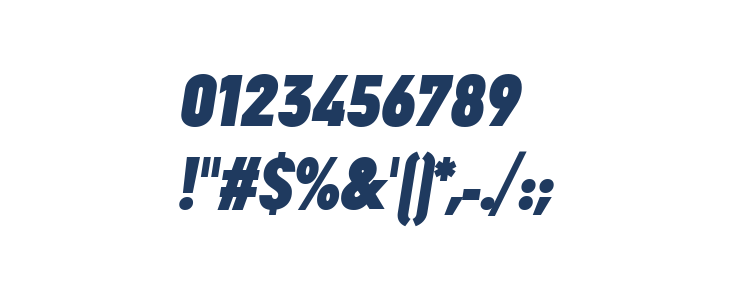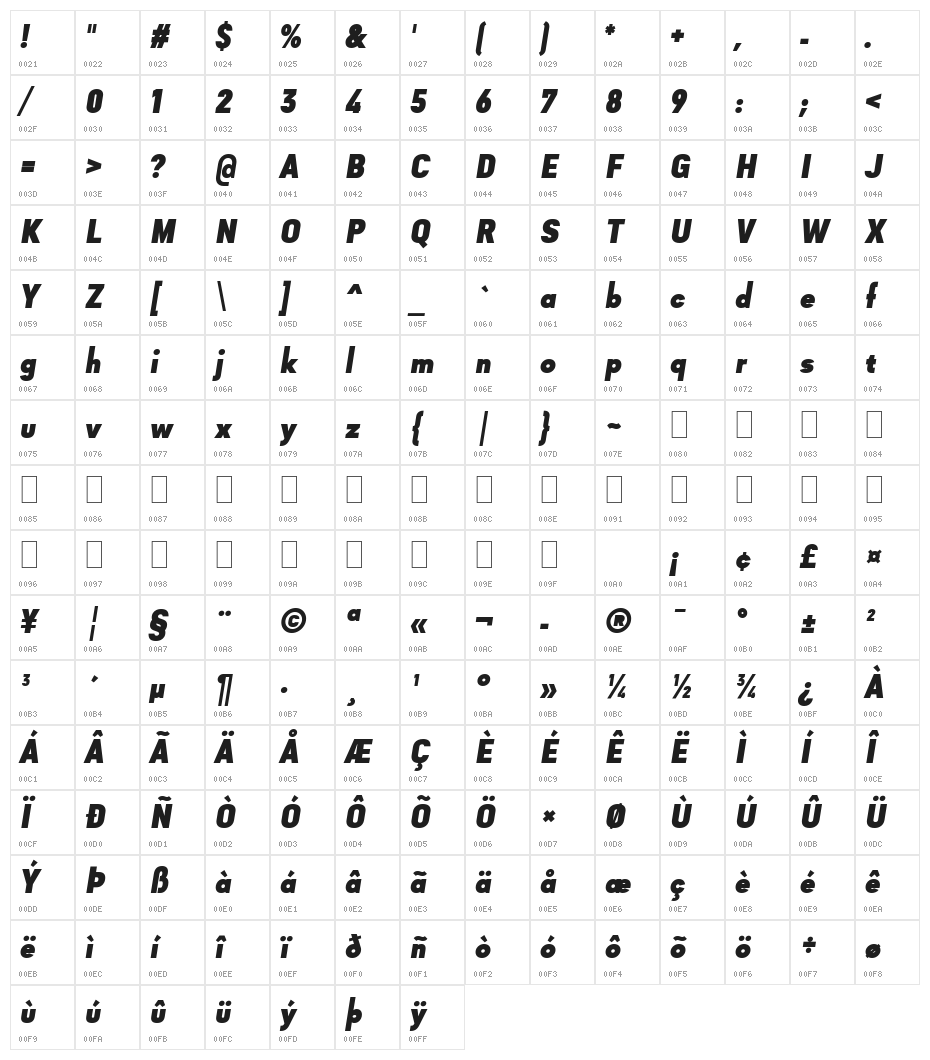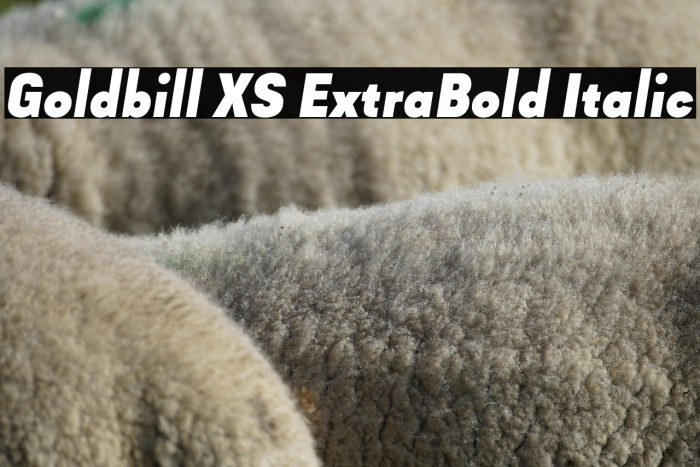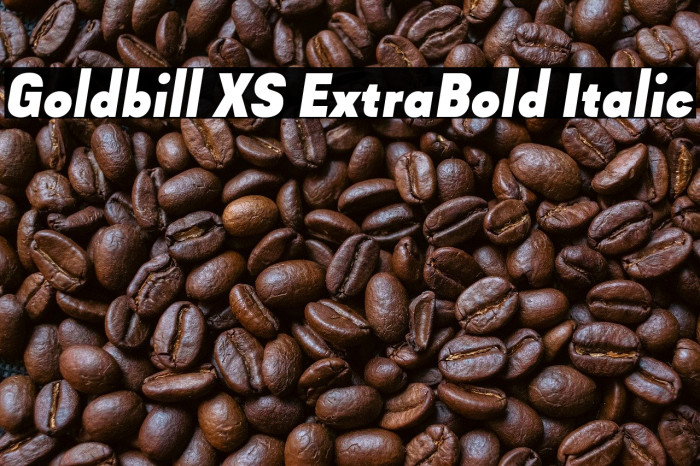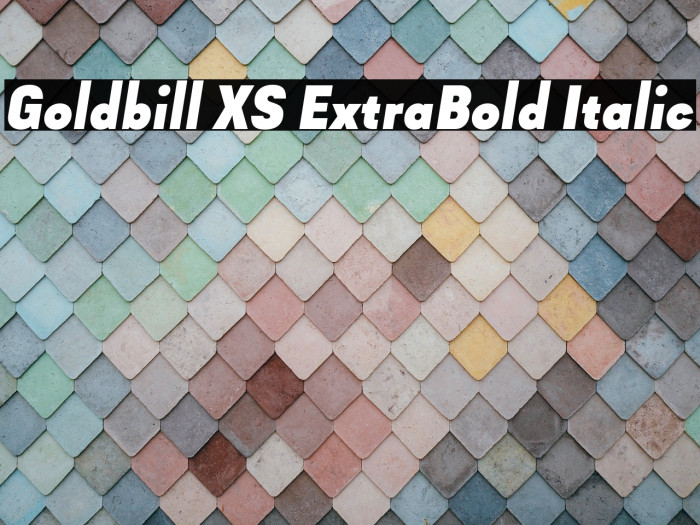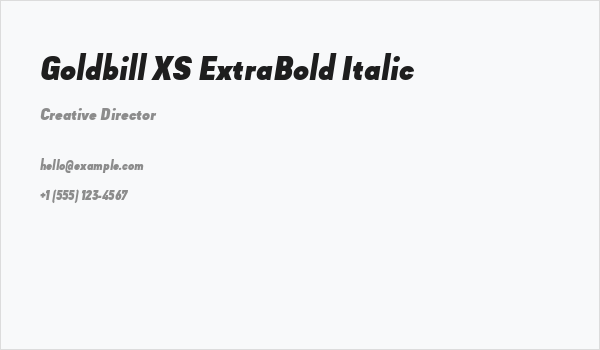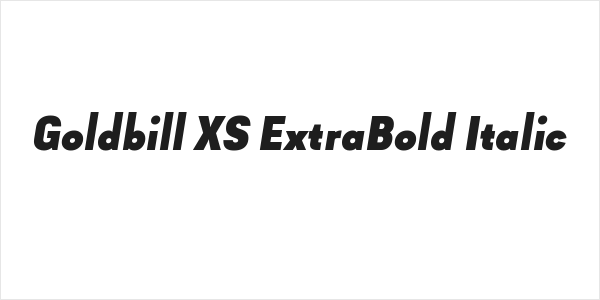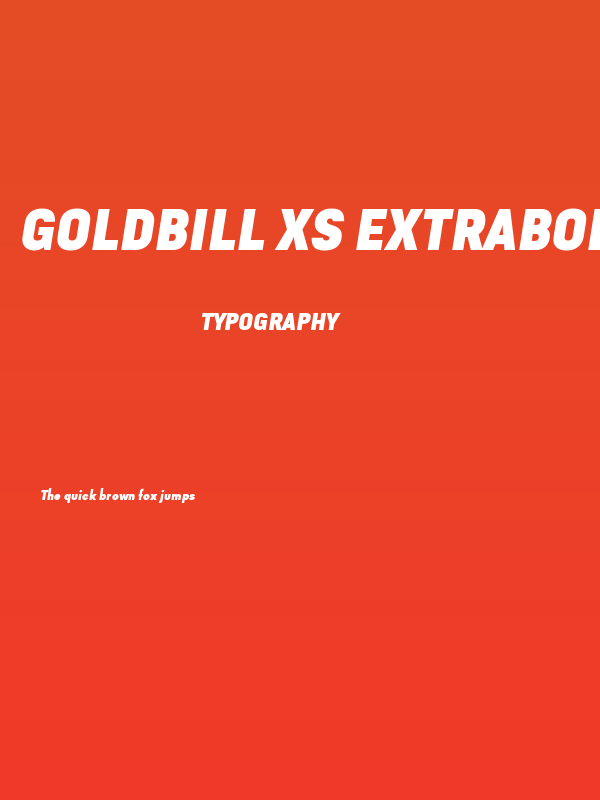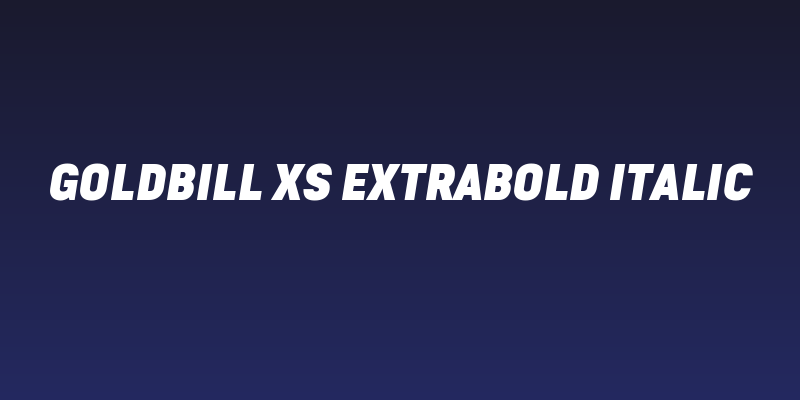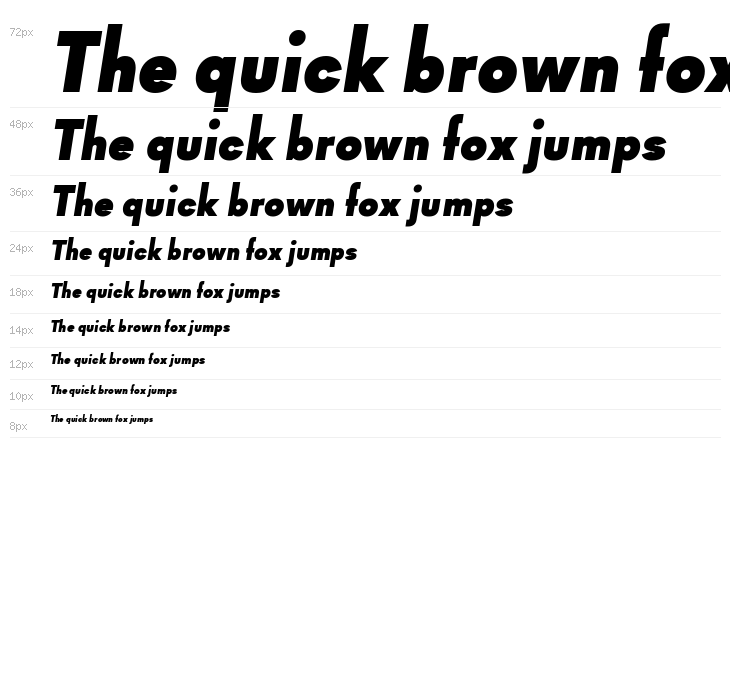
Goldbill XS ExtraBold Italic Font
Goldbill XS ExtraBold Italic Description
This typeface features a bold and dynamic presence with its extra bold weight and italic style, making it stand out prominently in any design. The characters are robust and slightly condensed, providing a powerful visual impact. The strokes are thick and consistent, offering a high contrast that enhances readability while maintaining a strong aesthetic appeal. The italic slant adds a sense of motion and modernity, making it suitable for contemporary designs. The font includes a full set of uppercase and lowercase letters, numerals, and a variety of special characters, ensuring versatility in usage.
Use CaseHeadlines, Logos, Branding
Proposed ProjectsIdeal for branding, advertising, headlines, and any project requiring a strong visual impact.